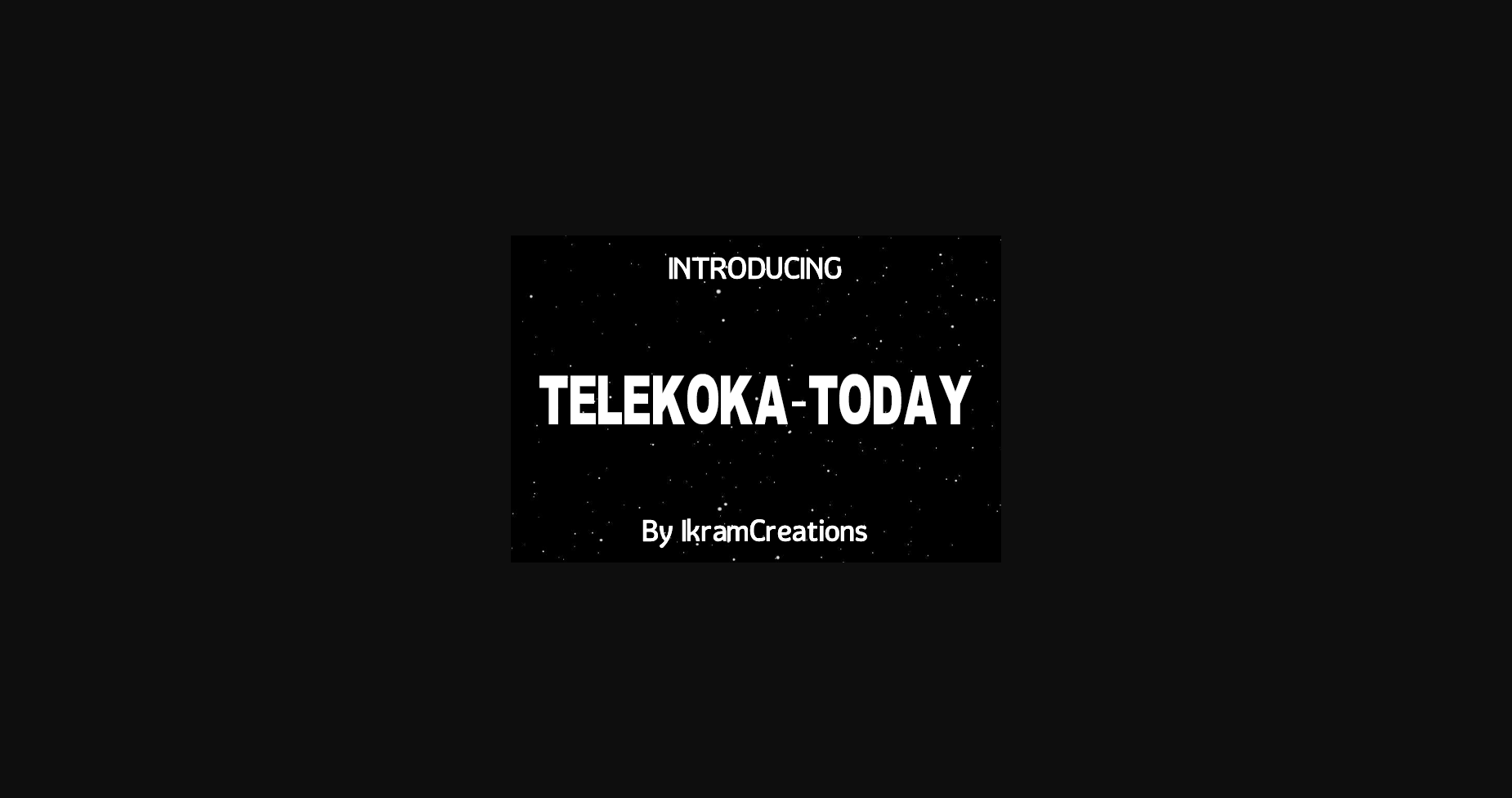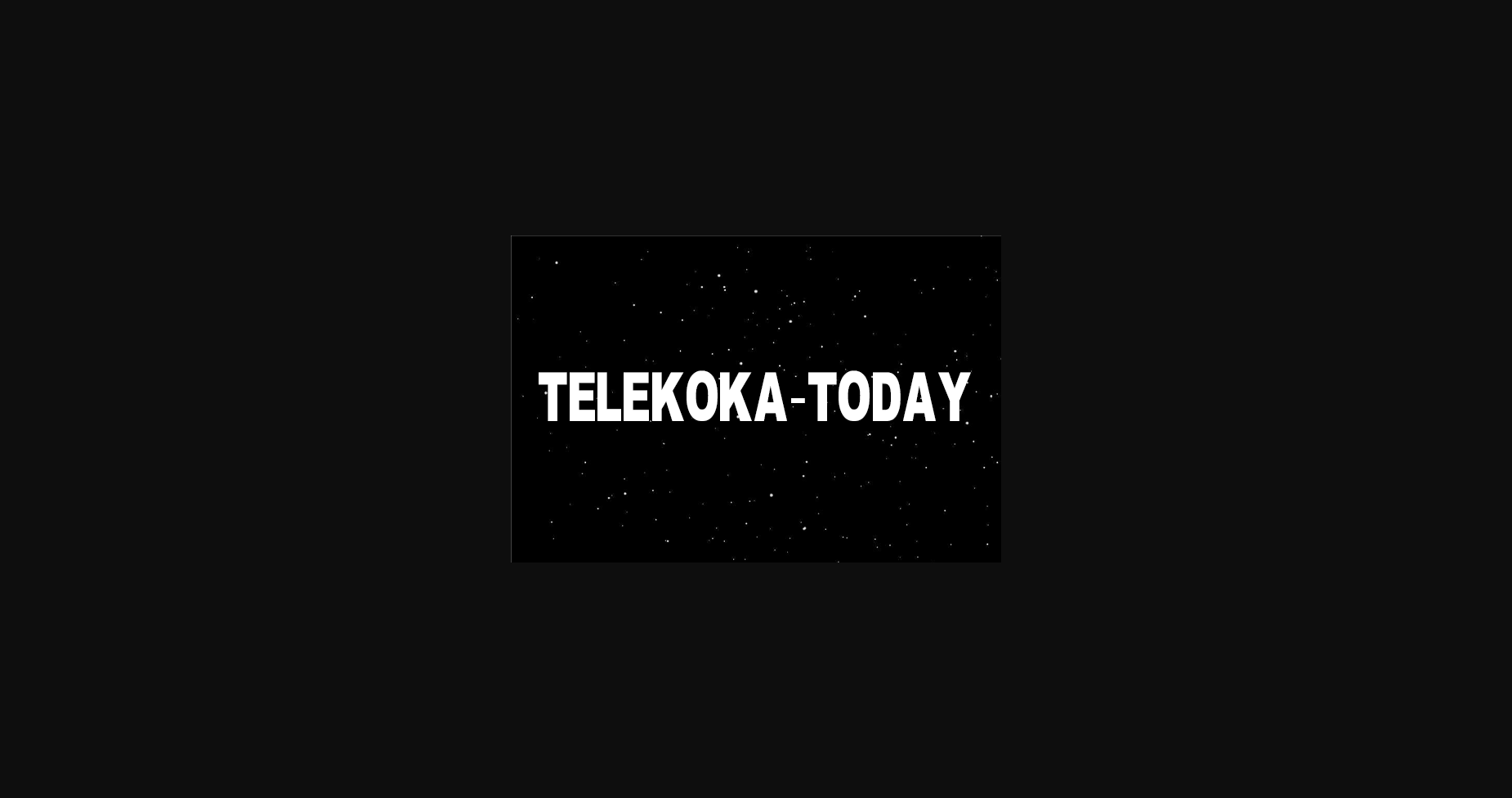
HomeSans Serif FontsTelekoka Today Font Sans Serif Fonts Telekoka Today Font FacebookXPinterestWhatsApp 1 of 4 ... Telekoka Today Font Poster 2... Telekoka Today Font Poster 3... Telekoka Today Font Poster 4... About Telekoka Today Font Telekoka Today is a modern and cool sans serif font. Add it confidently to your projects and you will love the results! DOWNLOAD NOW People also explored Freebird Font Wedding Font Italic Font Hatton Font Hummer Miller Rosalen Font Galfego Font Celtic Knot Monograms Arnold Story Font Growth Buckingham Font 1635 0 TagsTelekoka Today Font Previous articleNofex FontNext articleQuitars Font LEAVE A REPLY Cancel reply Comment: Please enter your comment! Name:* Please enter your name here Email:* You have entered an incorrect email address! Please enter your email address here Website: Save my name, email, and website in this browser for the next time I comment. Personal Use Free Fat Max Personal Use Free Read more about this font Retro Poster Personal Use Free Read more about this font DoooLA Personal Use Free Read more about this font Burgie Personal Use Free Read more about this font BLOG Best Fonts for T-Shirt Design – Top 2025 Picks In 2025, t-shirt design has become more than just fashion—it's a form of self-expression. Whether you're... Fonts That Capture the Spirit of New York City Modern Sans-Serif Fonts That Brands Love in 2025 Where to Buy American Fonts Online in 2024